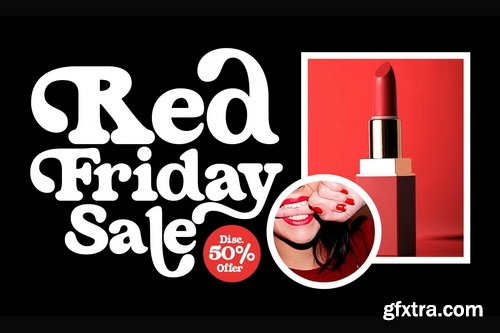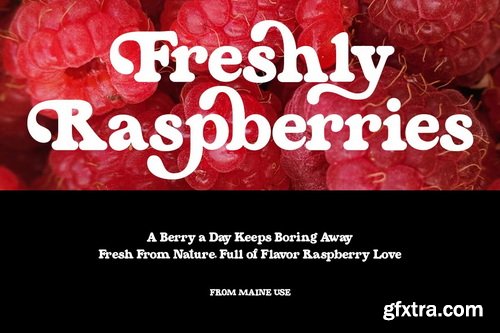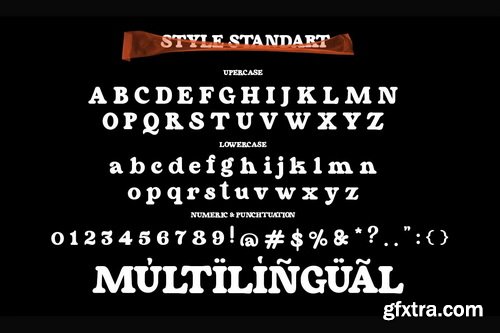
CreativeMarket - Mystic Lavender - Bold Serif Display
Mystic Lavender is a captivating display serif that masterfully combines bold sophistication with enchanting elegance. Featuring both regular and italic versions with exquisite stylistic alternates and ligatures, this typeface is meticulously crafted for premium branding, high-end logos, luxury packaging, and editorial designs that demand both presence and refinement. With its striking serif structure and graceful italic variation, Mystic Lavender delivers exceptional versatility for brands seeking both authority and allure. The carefully designed alternates and ligatures allow for mesmerizing typographic compositions that command attention while maintaining refined beauty.